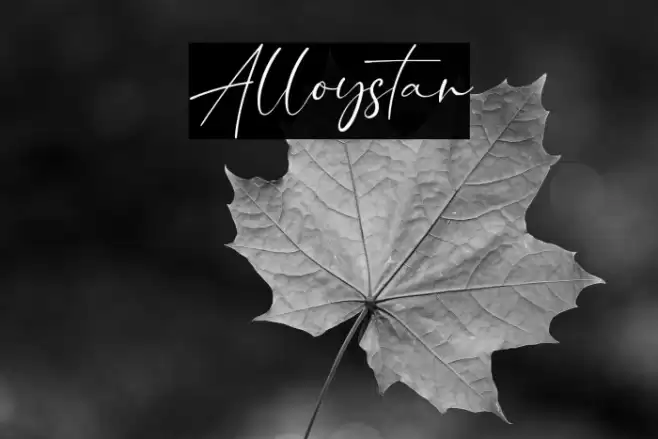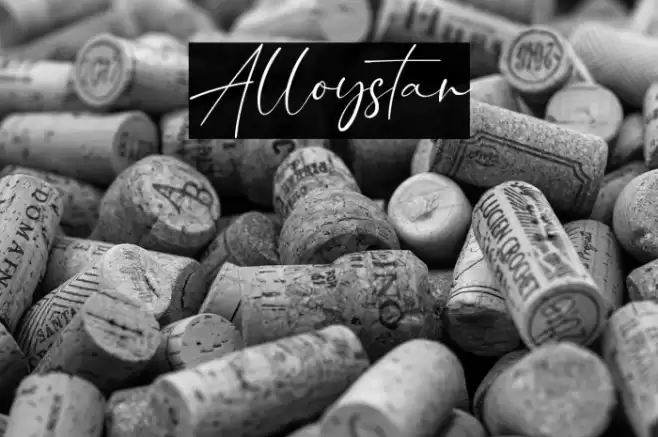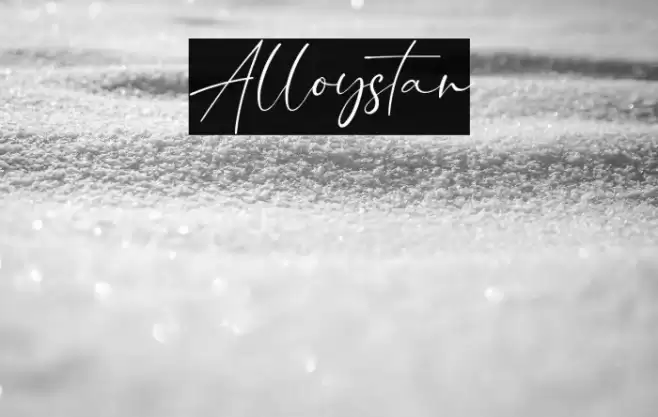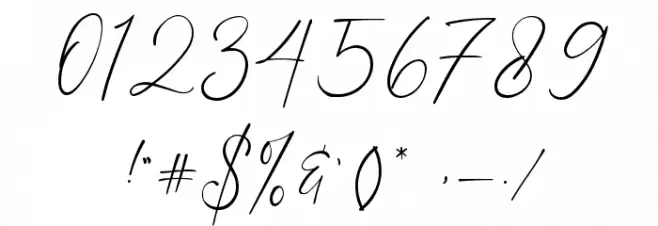
Alloystan Font
Alloystan Description
This font exhibits a fluid, elegant script style with a modern touch. The uppercase letters are characterized by sweeping curves and a slight slant, giving them a graceful and dynamic appearance. The lowercase letters maintain a consistent flow, with some characters featuring distinctive loops and flourishes that enhance the font's sophisticated look. The numerals are designed to complement the letters, with a similar slant and curvature. Special characters are seamlessly integrated, maintaining the overall aesthetic. The font's thin strokes and delicate lines suggest a refined and stylish presence, making it suitable for projects that require a touch of elegance and sophistication.
A modern, elegant script font with fluid curves and a refined style from Uncategorized fonts.
- Proposed Projects: Ideal for wedding invitations, elegant branding, personal signatures, and upscale product packaging.
- Use Case: Logos, Invitations, Branding